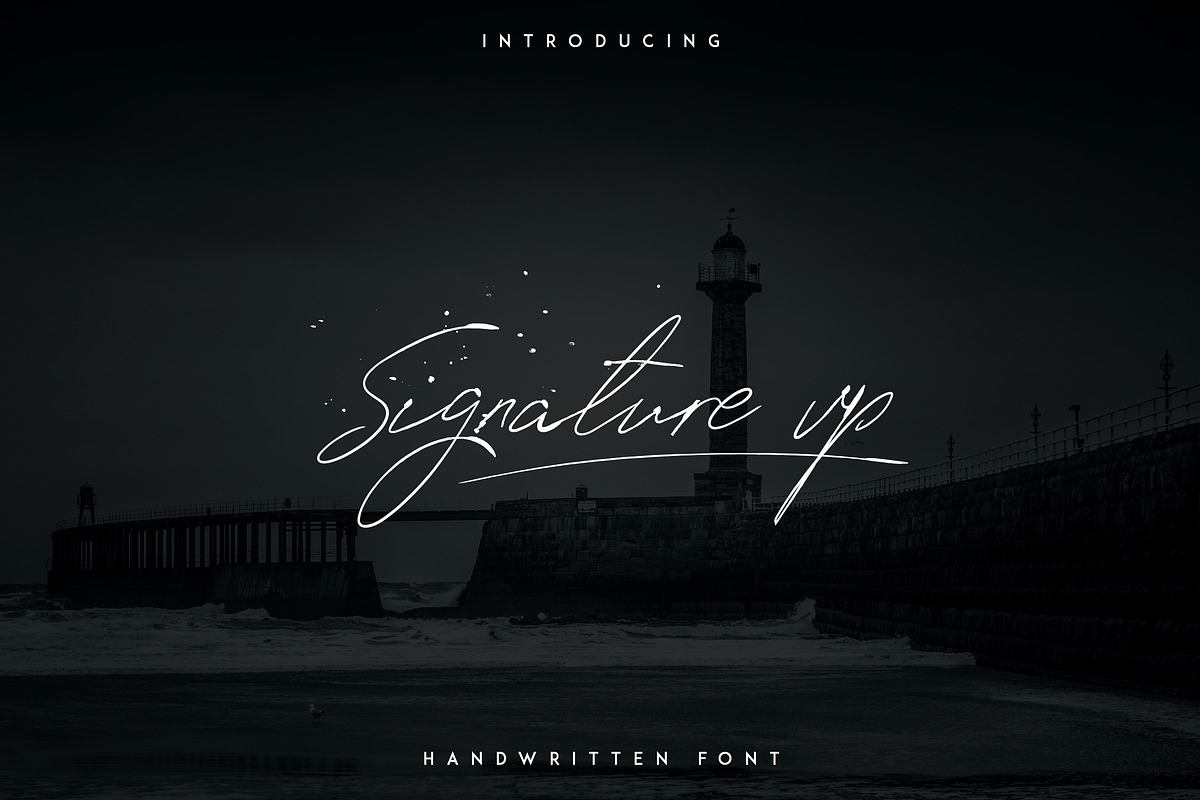
Signature vp - Handwritten font Free Download
Signature VP Handwritten Font Free Download
Signature VP Handwritten Font Free Download is a sleek and stylish script font that captures the look of a clean, professional signature. With its fluid strokes and modern elegance, this font is ideal for personal branding, business cards, logos, fashion labels, wedding invitations, and social media graphics that need a touch of luxury and authenticity.
Designed to mimic natural handwriting with a refined edge, Signature VP includes smooth ligatures and graceful letterforms that flow seamlessly together. Whether you're aiming for a minimalist look or a classy signature-style logo, this font delivers sophistication with personality.